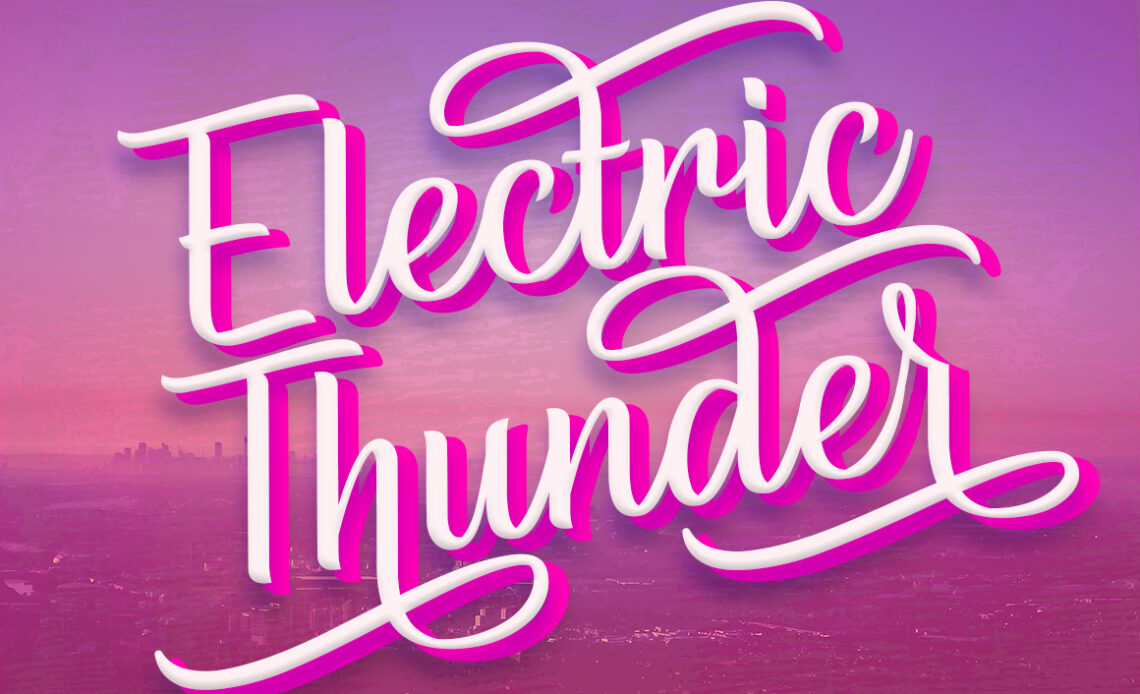
Journey into the world of Electric Thunder Font, a script that captivates with its organic flow and graceful lines. Created by The Traveling Fox, this font family embodies the allure of nature's dynamic energy. Inspired by the fluidity of life, Electric Thunder dances across the page, capturing the essence of untamed beauty.
With over 630 distinct glyphs, Electric Thunder presents a boundless realm of creative possibilities. Its characters coexist harmoniously, each possessing a unique personality while blending seamlessly into the collective rhythm of this awe-inspiring font.
From its initial unveiling, Electric Thunder has garnered accolades for its adaptability and versatility. It effortlessly complements an array of design projects, effortlessly adding a touch of elegance and artistry. Whether gracing wedding invitations, adorning logos, or adding a personal touch to branding, Electric Thunder leaves an indelible mark.
The font designers, with an eye for intricate detail, have meticulously crafted Electric Thunder to be a veritable treasure trove of typographic marvels. Its stunning alternates beckon you to explore the depths of creativity, inviting you to unleash a symphony of typographic variations.
Experience the exhilaration of endless combinations, as you let your imagination run wild with Electric Thunder. This font family is a canvas for limitless expression, allowing you to paint your words with a kaleidoscope of styles and possibilities.
Beyond its aesthetic allure, Electric Thunder carries a deeper emotional resonance. Its fluid lines evoke a sense of freedom, spontaneity, and unbridled creativity. Each flowing character seems to possess a life of its own, guiding you to transcend the boundaries of ordinary typography.
Unlock the Energy Within: With Electric Thunder, ignite the spark of inspiration within your designs. Let its electrifying energy permeate your creations, captivating your audience and leaving them spellbound. This font family is more than a collection of letters; it's an invitation to an artistic awakening, an odyssey into the realm of typographic enchantment.